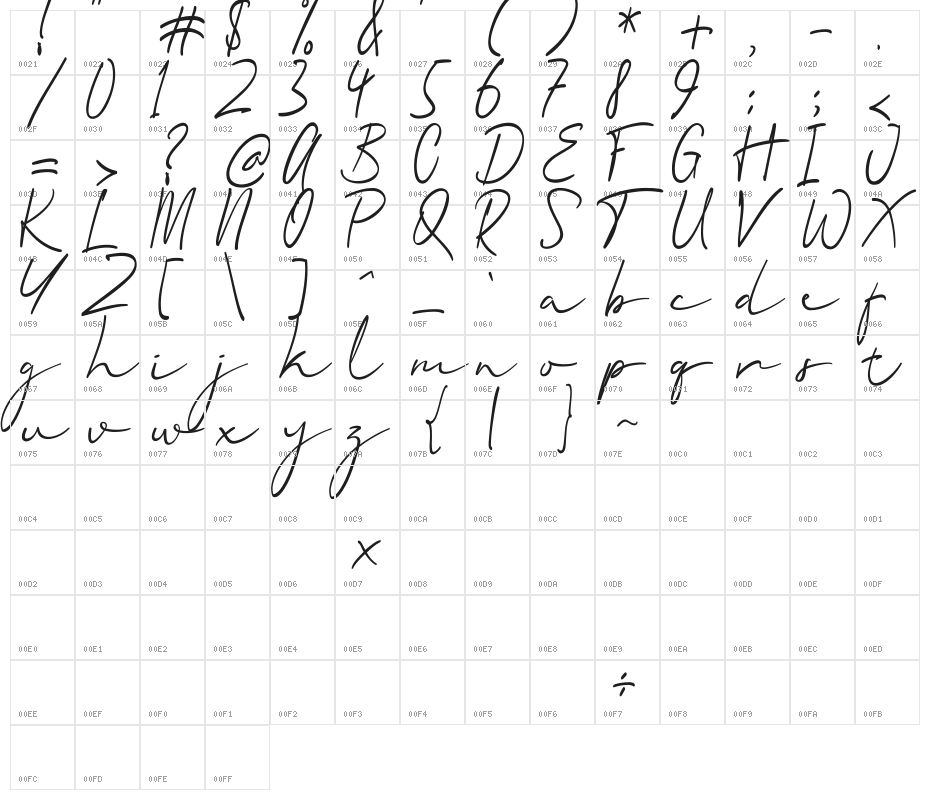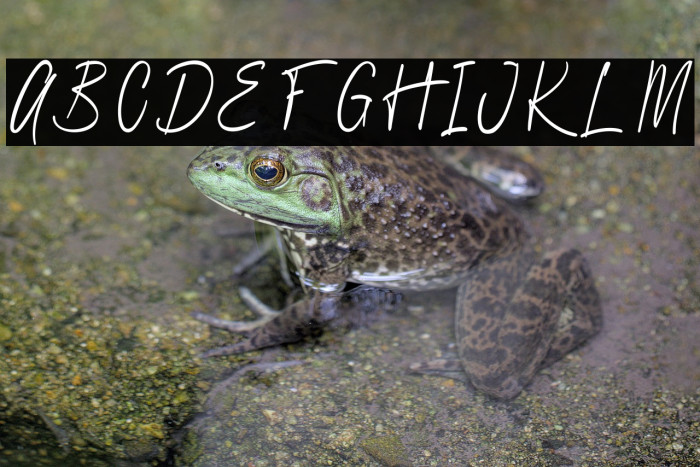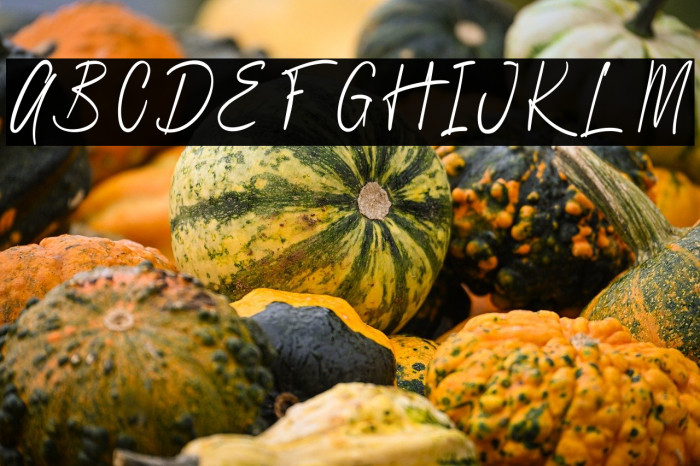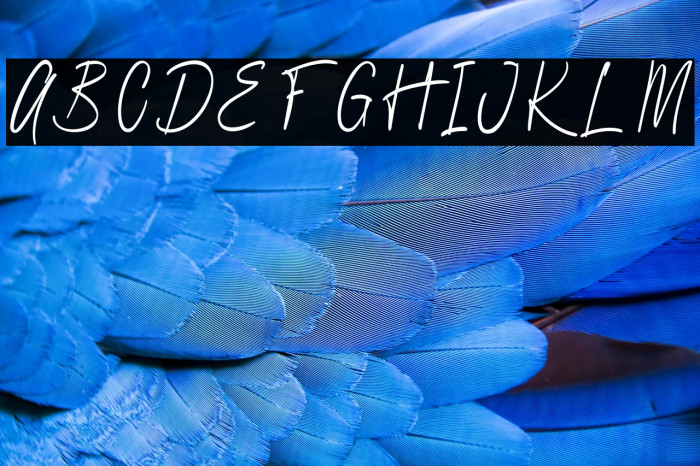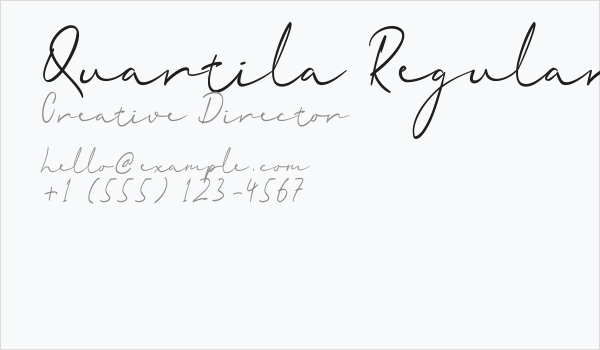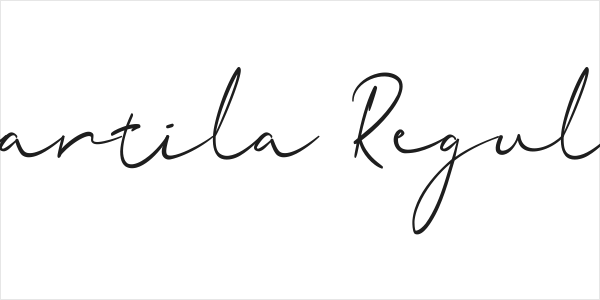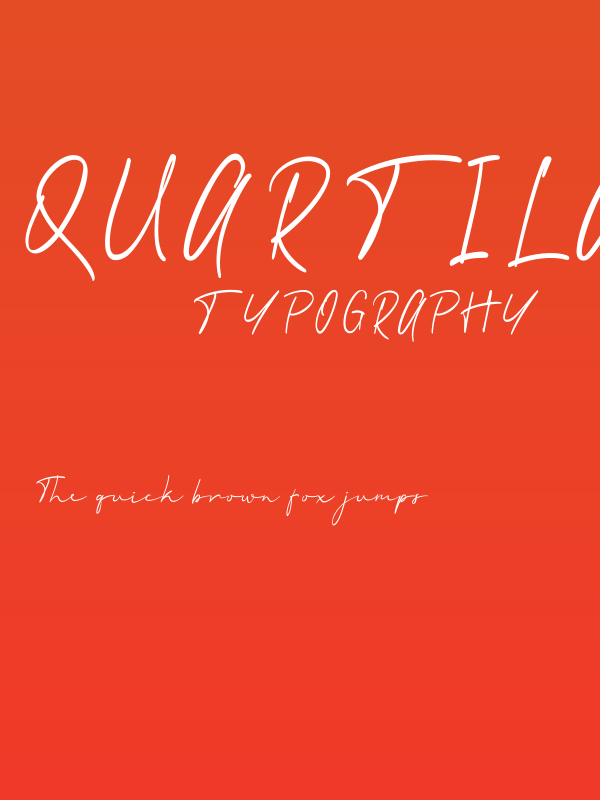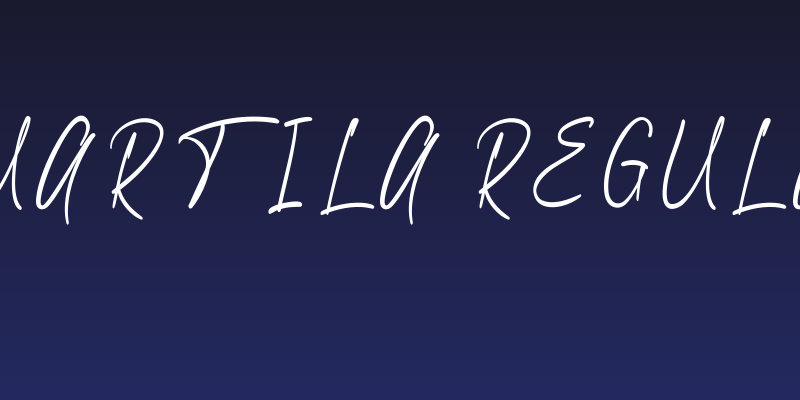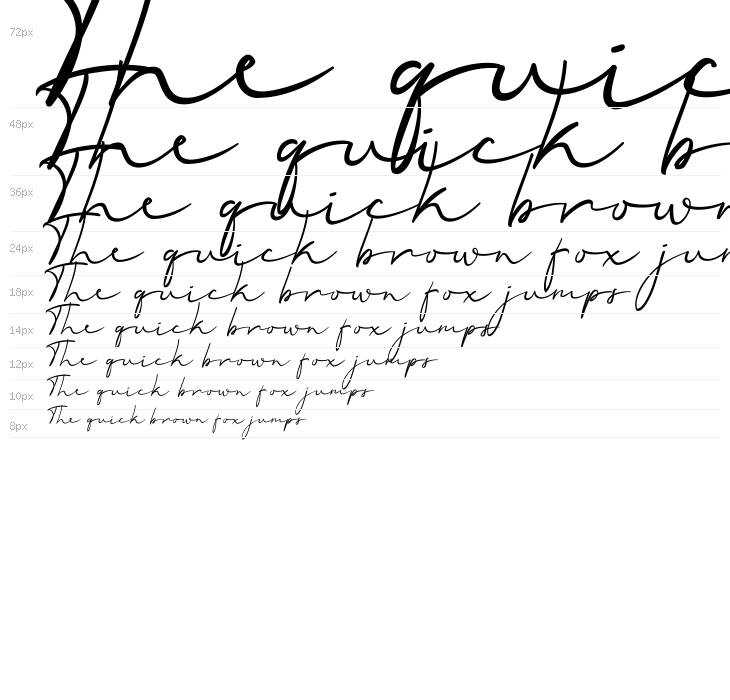
Quartila Regular Font
Quartila Regular Description
This font exudes a casual yet elegant handwritten style, characterized by its fluid and natural strokes. The uppercase letters are slightly more structured, maintaining a consistent height and width, while the lowercase letters flow seamlessly into one another, mimicking the natural movement of handwriting. The numbers and special characters maintain the same fluidity, ensuring a cohesive look across all characters. The overall appearance is both approachable and sophisticated, making it suitable for a variety of design applications.
| Use Case | Logos, Invitations, Social Media |
| Proposed Projects | Ideal for wedding invitations, personal branding, greeting cards, and social media graphics. |